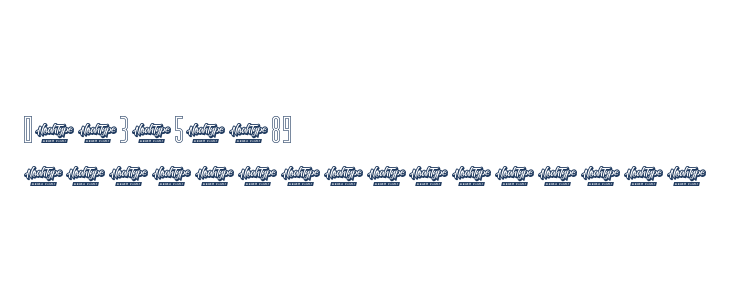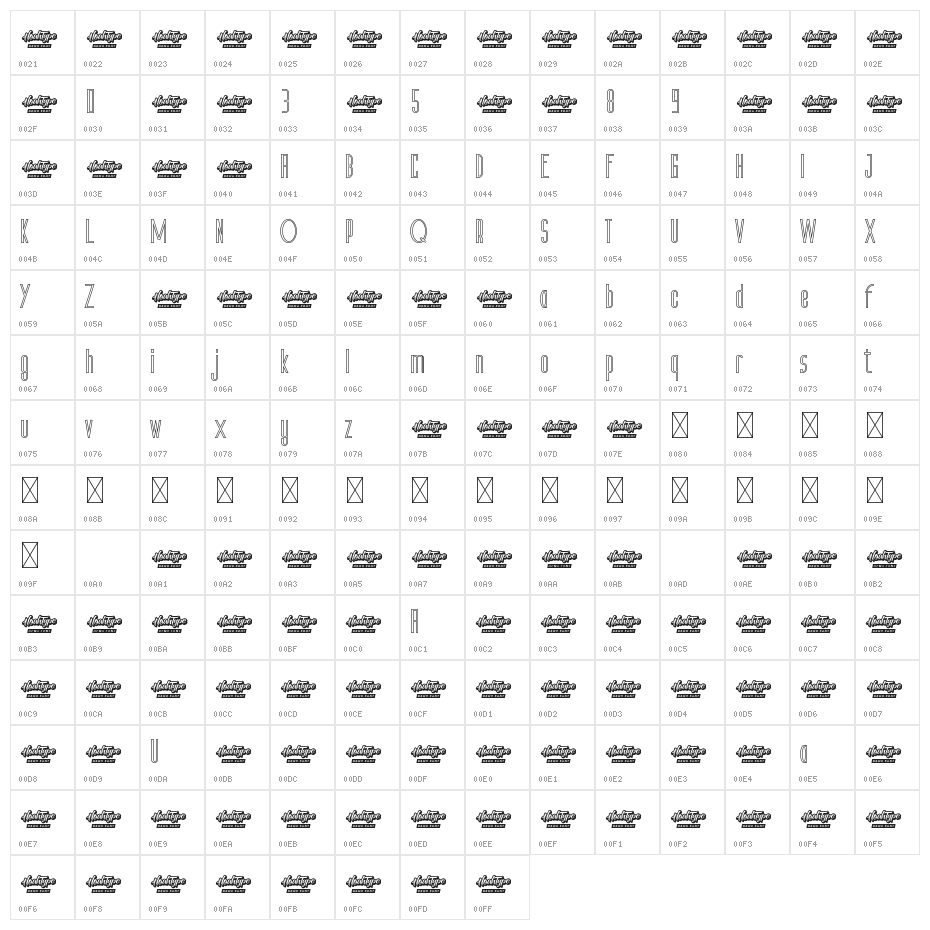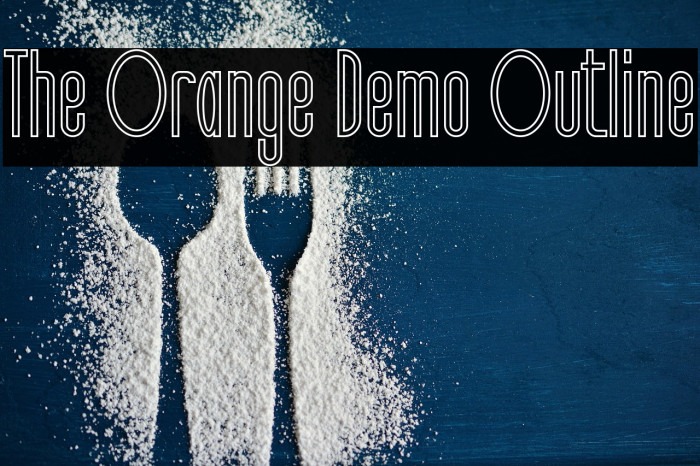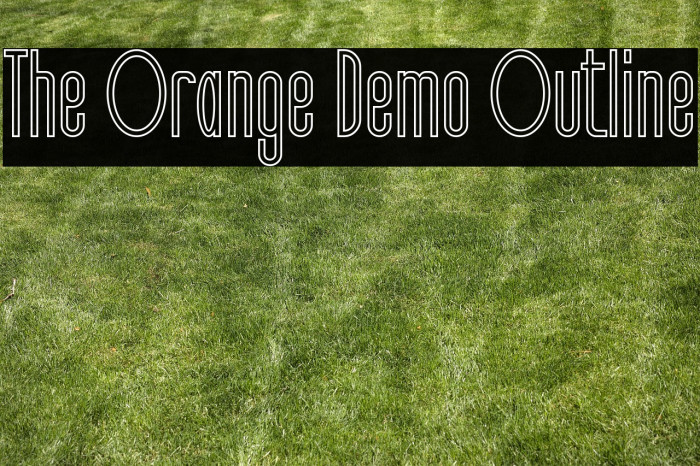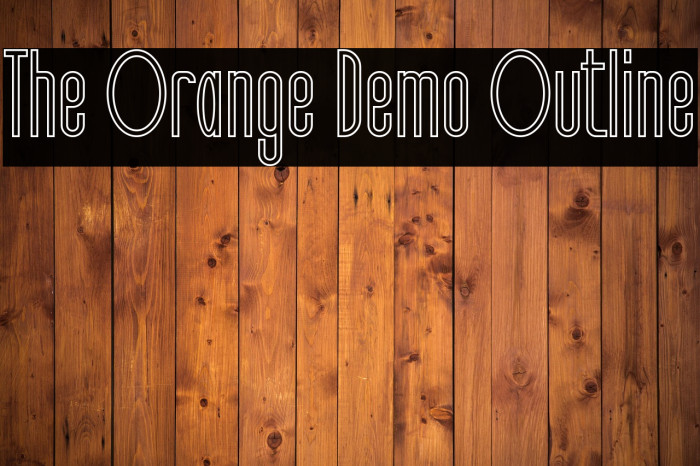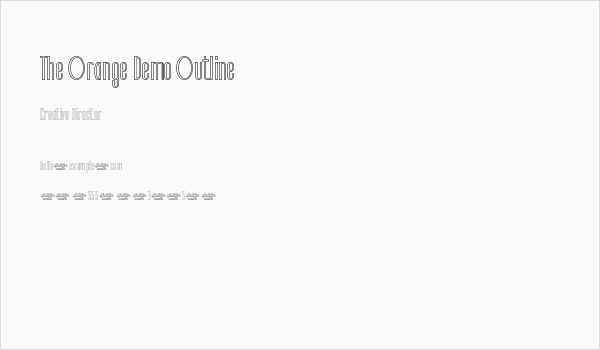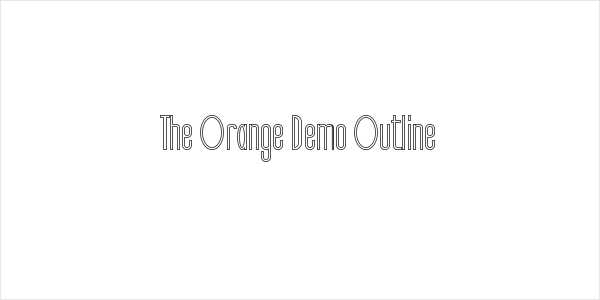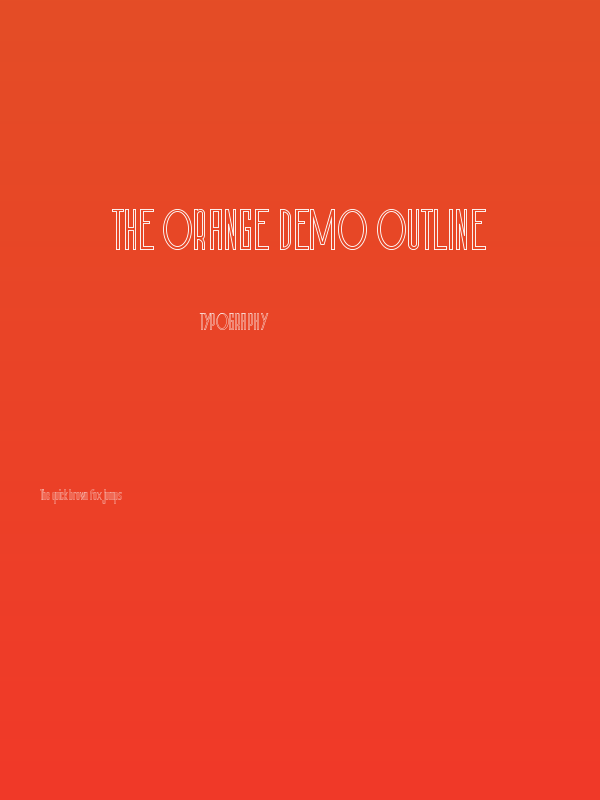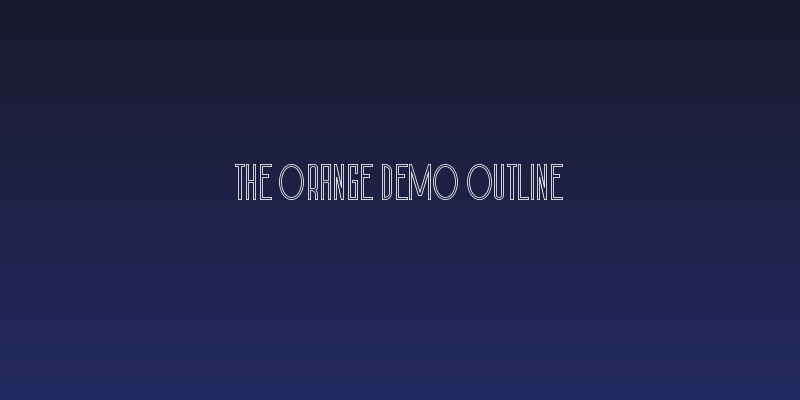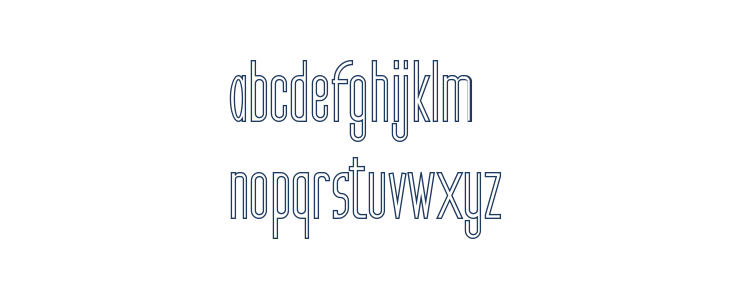
The Orange Demo Outline Font
The Orange Demo Outline Description
This font features a distinctive outline style that gives it a modern and edgy appearance. The uppercase letters are tall and narrow, with a geometric influence that adds a contemporary flair. The lowercase letters maintain a similar structure, ensuring consistency throughout the typeface. The numerals are designed to match the overall aesthetic, with clean lines and a uniform height. Special characters are included, maintaining the same outlined style, which makes them stand out. This font is ideal for projects that require a bold statement, as its unique design draws attention while remaining legible.
| Proposed Projects | Ideal for branding, posters, headlines, and any design needing a bold, modern touch. |